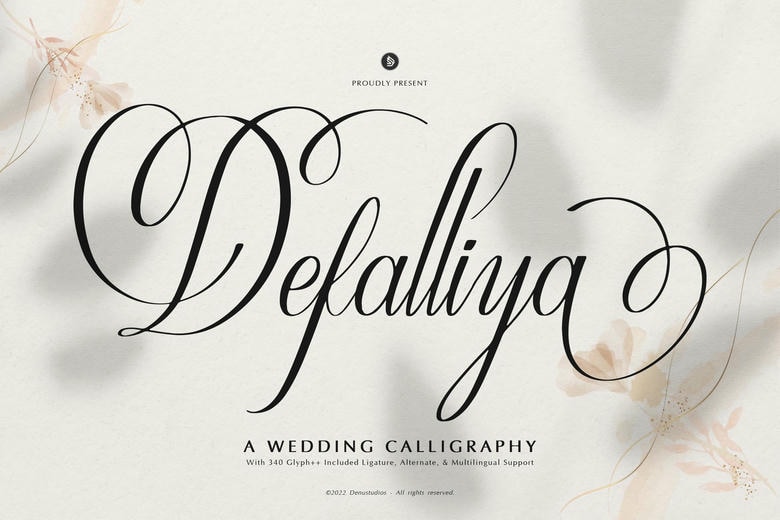
Defalliya Font
Defalliya is a stunning wedding calligraphy font that exudes elegance and grace. With over 340 glyphs, including alternates, ligatures, and multilingual support, this script font is the perfect choice for romantic branding, invitations, and stationery.
Its flowing letterforms and ornate swashes create a timeless, sophisticated feel — ideal for upscale wedding designs, logos, and formal events that demand refined beauty.
Defalliya Calligraphy Script Font